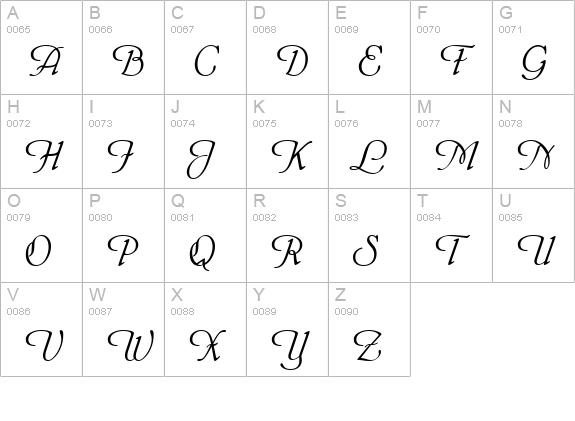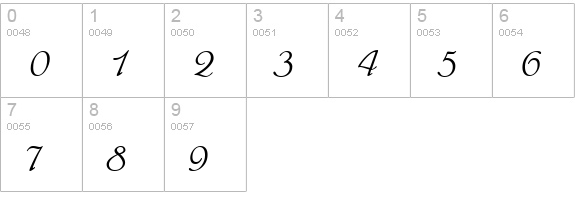
Phyllis ATT Italic Font Details
Phyllis ATT Italic is a distinctive, italic variant in the Phyllis typeface family \xE2\x80\x94 well suited to design and typography projects.
Phyllis ATT Italic is a stunning and elegant font that embodies grace and sophistication. With its delicate and flowing letterforms, this font adds a touch of refined elegance to any project. Designed with utmost attention to detail, Phyllis ATT Italic creates a harmonious balance between traditional calligraphy and modern design. This font is perfect for creating beautiful and eye-catching designs, whether it's for invitations, logos, branding, or any other creative project. Its unique italic style adds a touch of personality and flair, making your text stand out from the crowd. One of the best things about Phyllis ATT Italic is that it is free to download. Yes, you read that right - this exquisite font is freely available at FontsMarket.com. You can bring this font into your design arsenal without spending a dime, making it an incredibly valuable asset for designers, artists, and creators. Whether you're a professional designer or a hobbyist, Phyllis ATT Italic is a must-have font that will elevate your designs to new heights. Its versatility and timeless beauty make it suitable for various design projects, ensuring that you will find endless creative possibilities with this font. Download Phyllis ATT Italic today from FontsMarket.com and experience the beauty and elegance it brings to your designs. Embrace the freedom of creativity and let this font be your artistic companion.